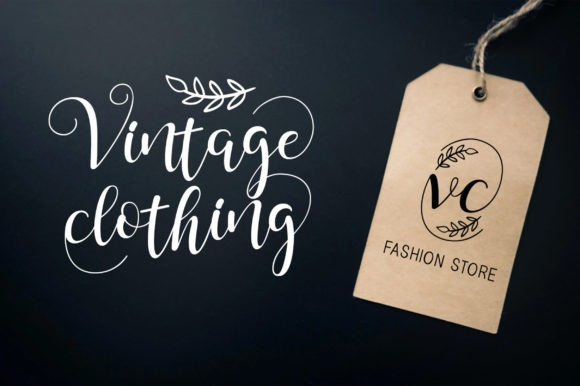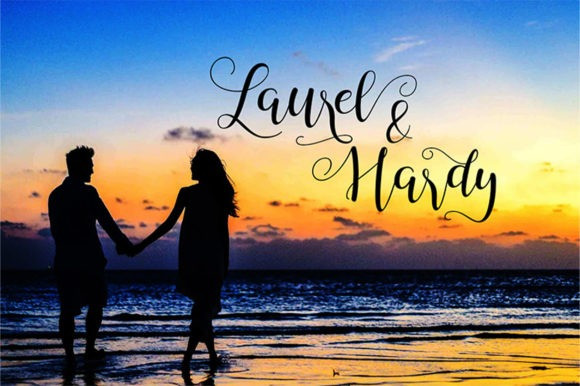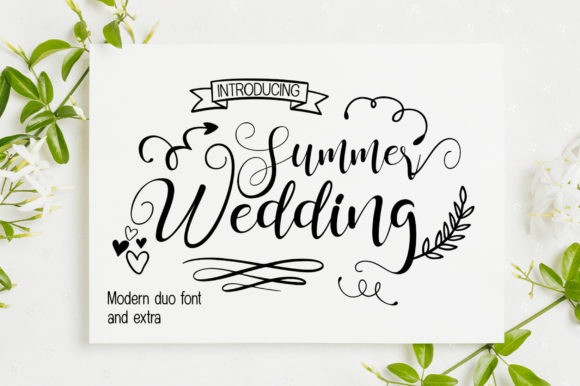
Summer Wedding Font
Summer Wedding Script Font is elegant trio font (handwritten, dingbats and sans serif). This original look will appeal to a wide range of crafty ideas, from letterheads and titles, to stationery.
Add it confidently to your favorite creations and let yourself be amazed by the outcome generated.